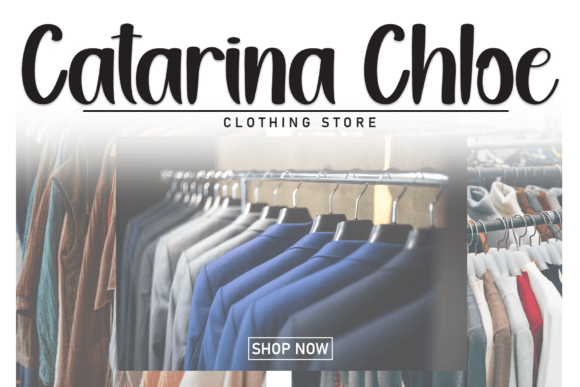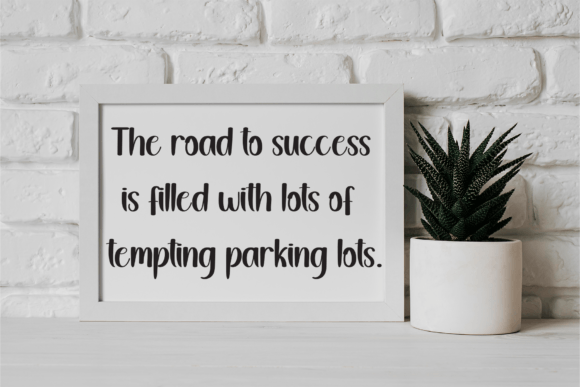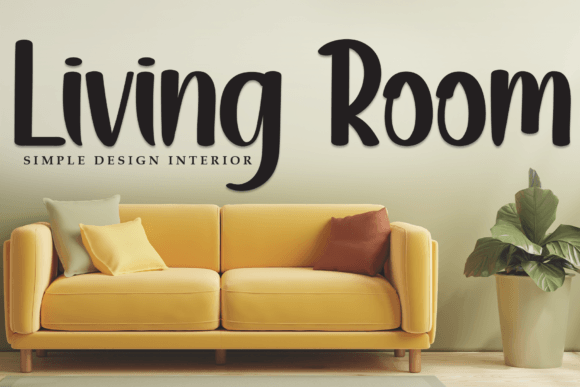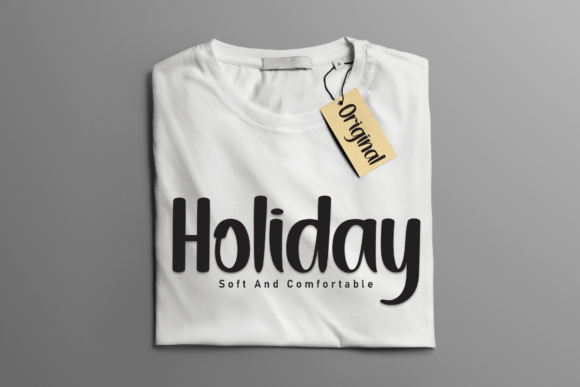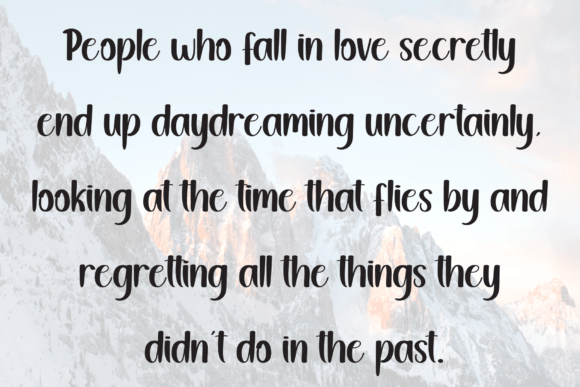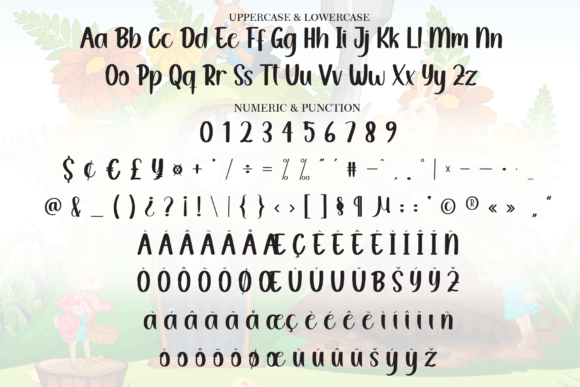
Introduction to Bunny House Font
Have you ever found yourself browsing through a design market, searching for the perfect font to give your next creative project a touch of whimsy? It’s that moment of discovery, when you stumble upon a font that perfectly captures the essence of your vision, that makes all the browsing worth it. For many designers, that moment came when they discovered the Bunny House Font – a sweet and friendly handwritten font that adds a lovely touch to any design.
The Bunny House Font is more than just a pretty face, though. It’s a high-quality design resource that’s perfect for writing wedding invitations, cards, or any other project that needs a little extra charm. And the best part? It’s available for free download, making it a valuable asset for designers on a budget.
- Unique, whimsical design featuring a cute bunny character
Honest Review: Bunny House Font
I recently stumbled upon the Bunny House Font while searching for a free download to enhance my creative project. After giving it a try, I’m excited to share my honest review.
- ✨ The font’s high quality is immediately noticeable, making it perfect for designs where clarity is key.
- ✨ The transparent background option is a game-changer for designers who want to create a cohesive look without the distractions of a background.
- ✨ The font is incredibly versatile and can be used in a variety of creative projects, from logos to social media graphics.
Any limitations:
- ⚠️ The font is limited to a single style, which might not be ideal for designers who want a range of options for their project.
- ⚠️ The font may not be suitable for designs that require a lot of bold or dramatic typography.
Overall, I’m impressed with the Bunny House Font and would definitely recommend it as a valuable design resource. While it may not be perfect for every project, its high quality and versatility make it a great addition to any designer’s toolkit.
Tips for Getting the Most Out of the Bunny House Font
Use the Bunny House Font in combination with other design resources to create a high-quality, visually appealing design. Experiment with different font sizes, colors, and styles to find the perfect look for your creative project.
The Bunny House Font is perfect for creating invitations, posters, and social media graphics. Its playful and whimsical design makes it ideal for children’s parties, baby showers, and other fun events.